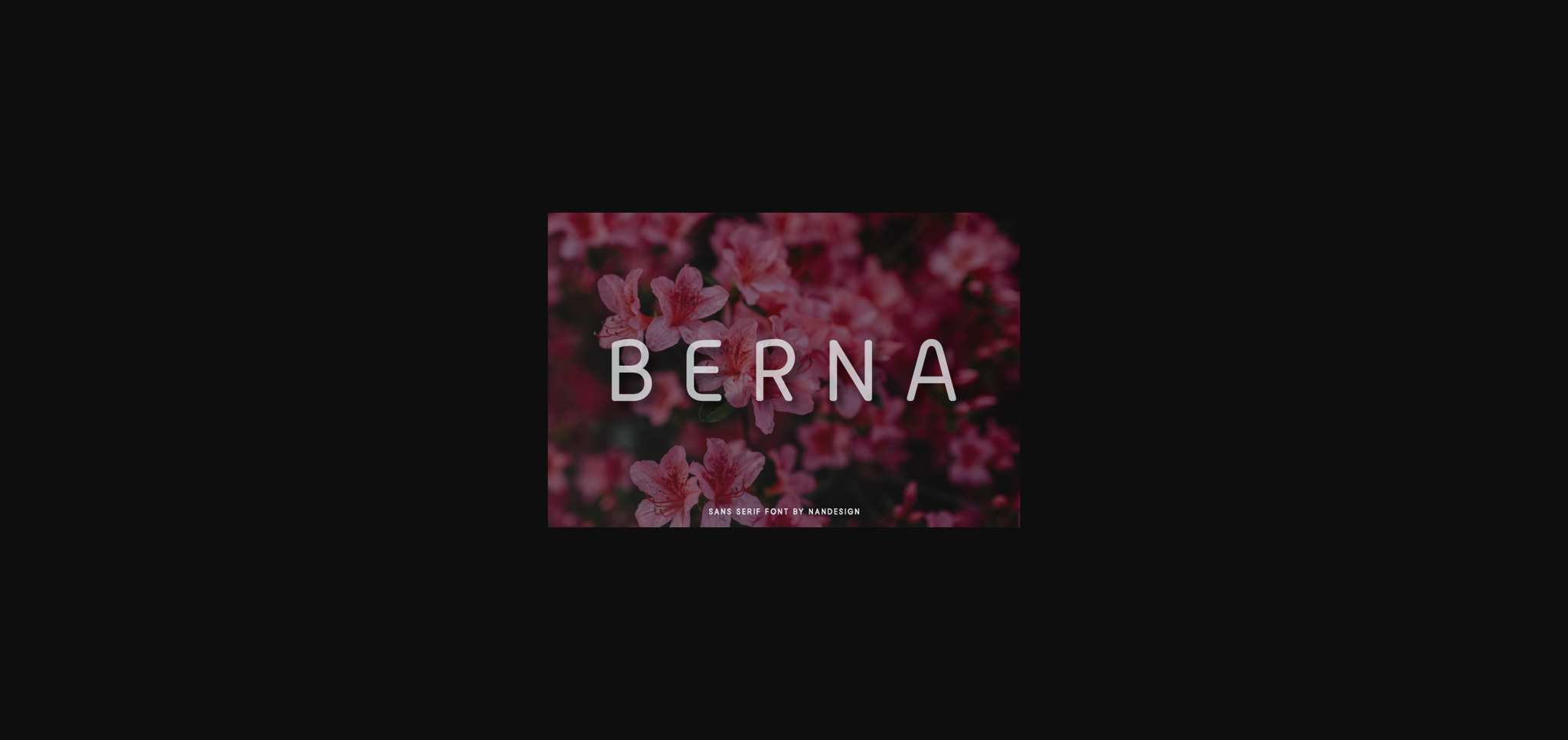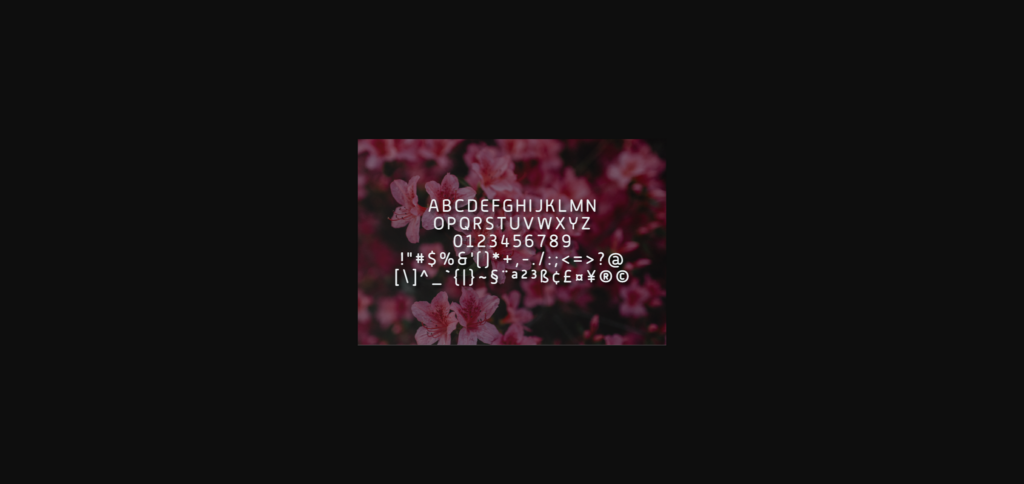
Berna Font
About Berna Font
Berna is a neat sans serif font. Clean and simple, this font is the perfect fit for all of your logos, branding, social media, and crafty DIY projects.